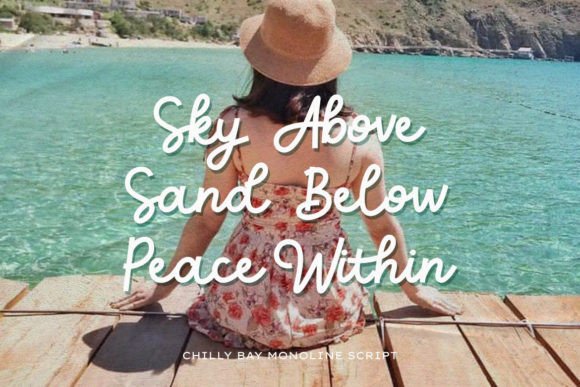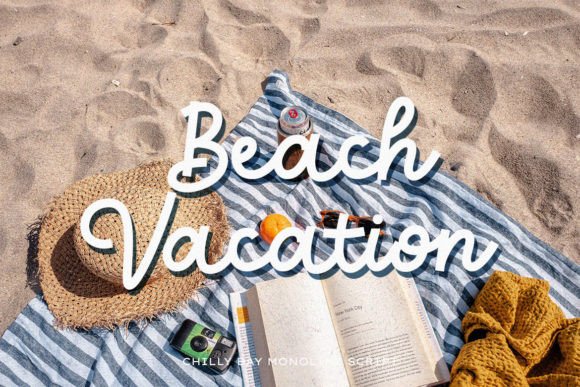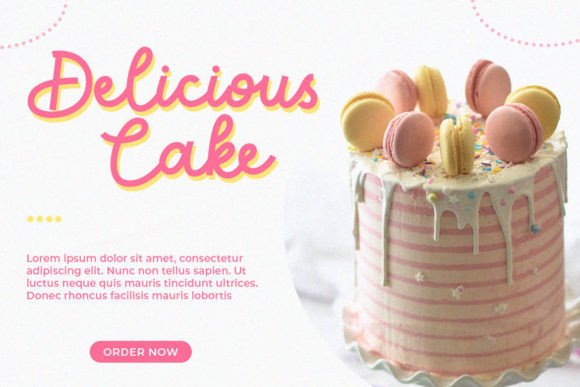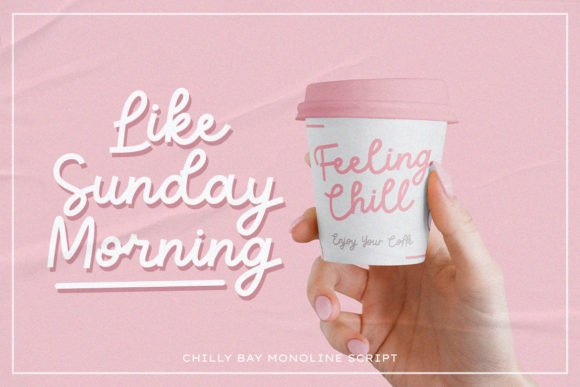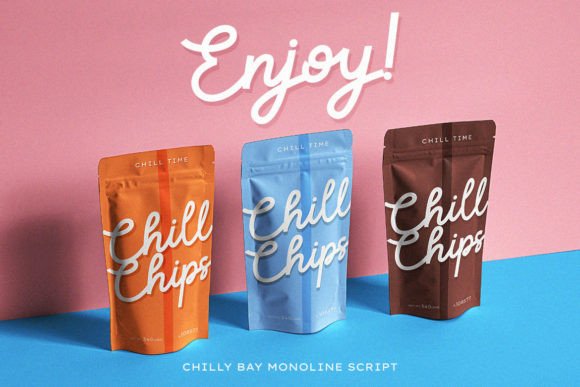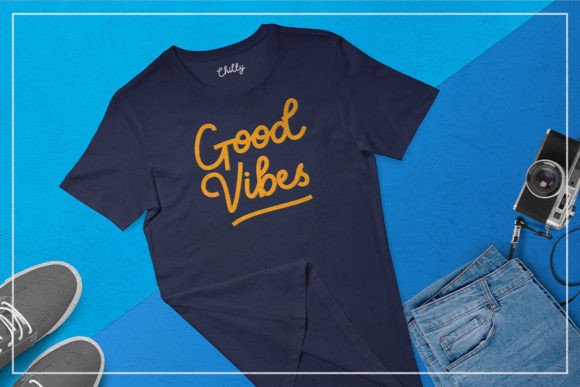
Introducing Chilly Bay Font: The Sweet and Fun Monoline Script Font
Are you looking for a font that can add a touch of happiness and playfulness to your designs? Look no further than Chilly Bay Font! This sweet and fun monoline script font is perfect for a variety of projects, from greeting cards and banners to book covers, logos, and posters. In this article, we’ll take a closer look at Chilly Bay Font and explore its features, benefits, and uses.
What is Chilly Bay Font?
Chilly Bay Font is a monoline script font that features smooth, flowing lines and a carefree spirit. Its unique design makes it perfect for adding a personal touch to your designs, whether you’re creating something for personal use or for a client. The font’s monoline construction gives it a modern and sleek look, while its script style adds a touch of elegance and sophistication.
Key Features of Chilly Bay Font
- Sweet and Fun Design: Chilly Bay Font has a playful and cheerful design that’s perfect for creating happy and uplifting designs.
- Monoline Construction: The font’s monoline construction gives it a modern and sleek look that’s perfect for a variety of projects.
- Script Style: The font’s script style adds a touch of elegance and sophistication to your designs.
- Easy to Read: Despite its playful design, Chilly Bay Font is easy to read, making it perfect for use in body text and headlines.
Uses for Chilly Bay Font
Chilly Bay Font is a versatile font that can be used for a wide range of projects, including:
- Greeting Cards: Add a personal touch to your greeting cards with Chilly Bay Font’s playful and cheerful design.
- Banners: Create eye-catching banners with Chilly Bay Font’s bold and modern design.
- Book Covers: Add a touch of elegance and sophistication to your book covers with Chilly Bay Font’s script style.
- Logos: Create a unique and memorable logo with Chilly Bay Font’s modern and sleek design.
- Posters: Create eye-catching posters with Chilly Bay Font’s bold and playful design.
Benefits of Using Chilly Bay Font
There are many benefits to using Chilly Bay Font in your designs, including:
- Unique Design: Chilly Bay Font has a unique and playful design that will set your designs apart from the crowd.
- Versatile: Chilly Bay Font can be used for a wide range of projects, from greeting cards to book covers.
Tips for Using Chilly Bay Font
Here are a few tips for using Chilly Bay Font in your designs:
- Use it for Headlines: Chilly Bay Font is perfect for use in headlines and titles, where its bold and playful design can really shine.
- Pair it with Other Fonts: Chilly Bay Font can be paired with other fonts to create a unique and interesting design.
- Experiment with Colors: The font looks great in a variety of colors, so don’t be afraid to experiment and find the perfect color for your design.
Chilly Bay Font is a sweet and fun monoline script font that’s perfect for adding a touch of happiness and playfulness to your designs. With its unique design, ease of use, and versatility, it’s a great choice for designers and crafters looking to create eye-catching and memorable designs. Whether you’re creating greeting cards, banners, book covers, logos, or posters, Chilly Bay Font is a great choice. So why not give it a try and see what amazing designs you can create?